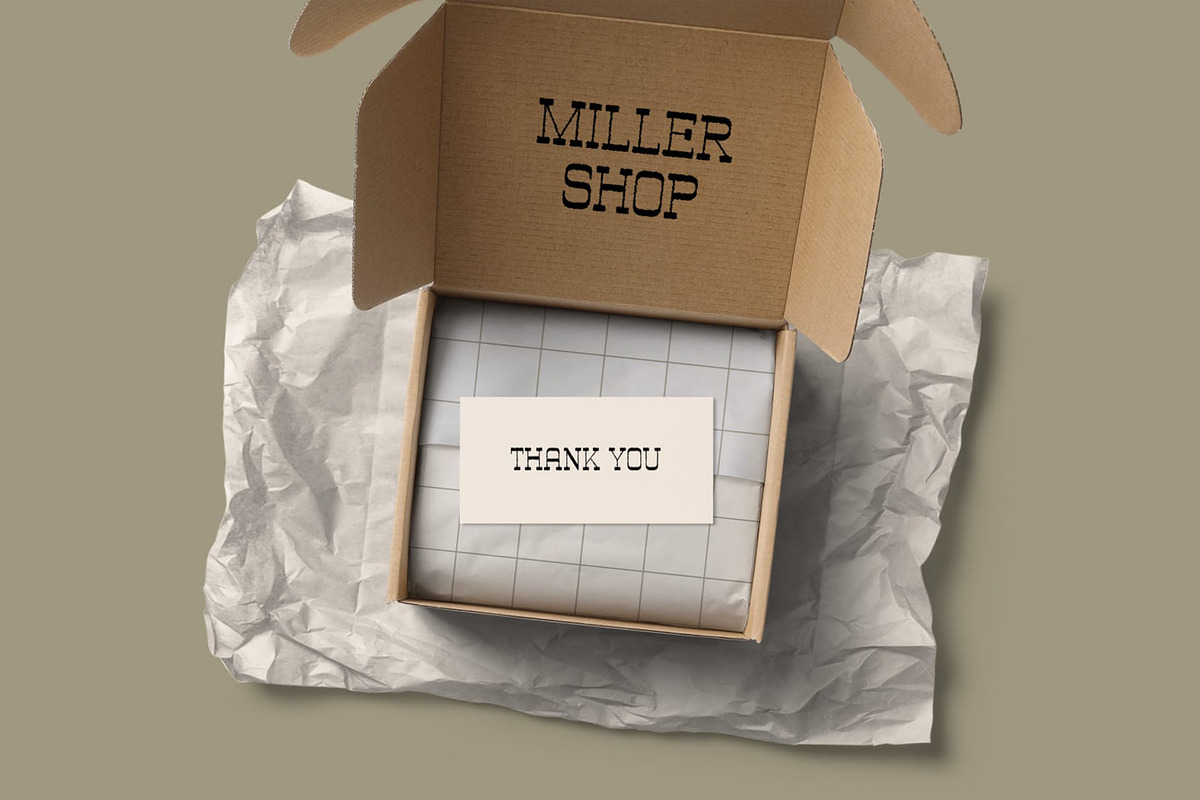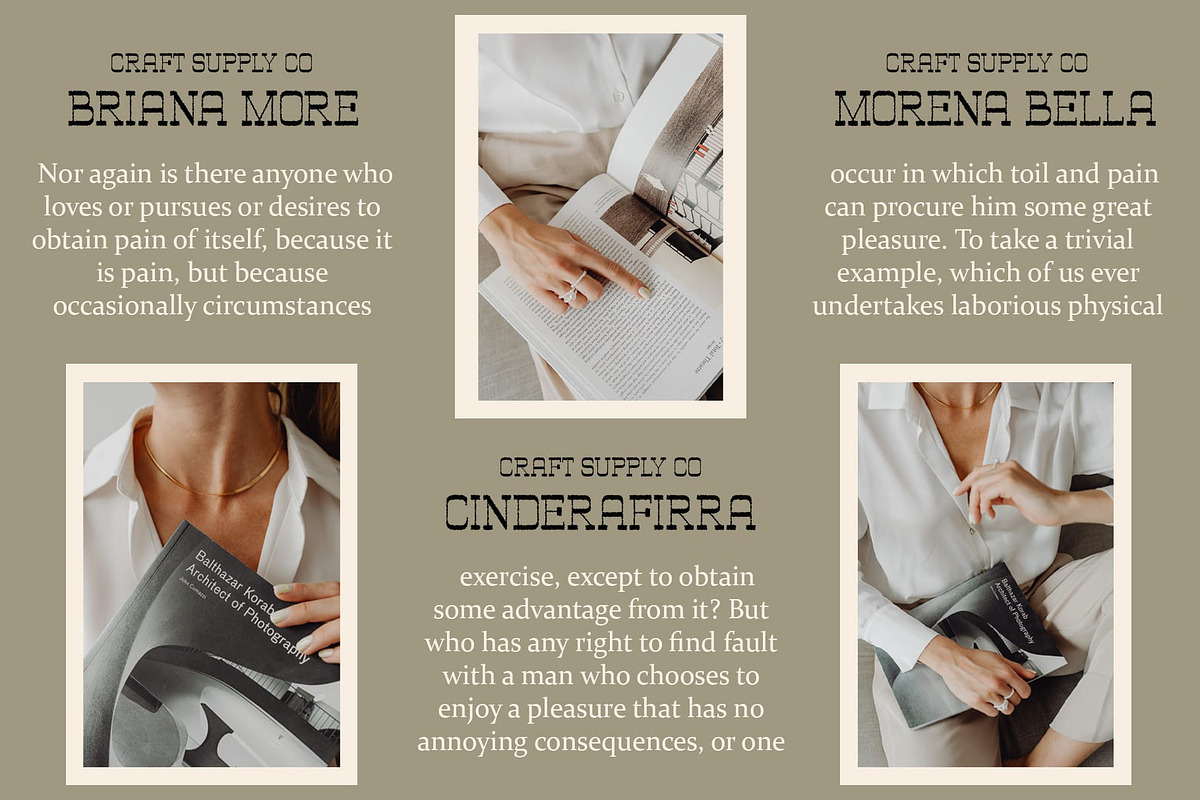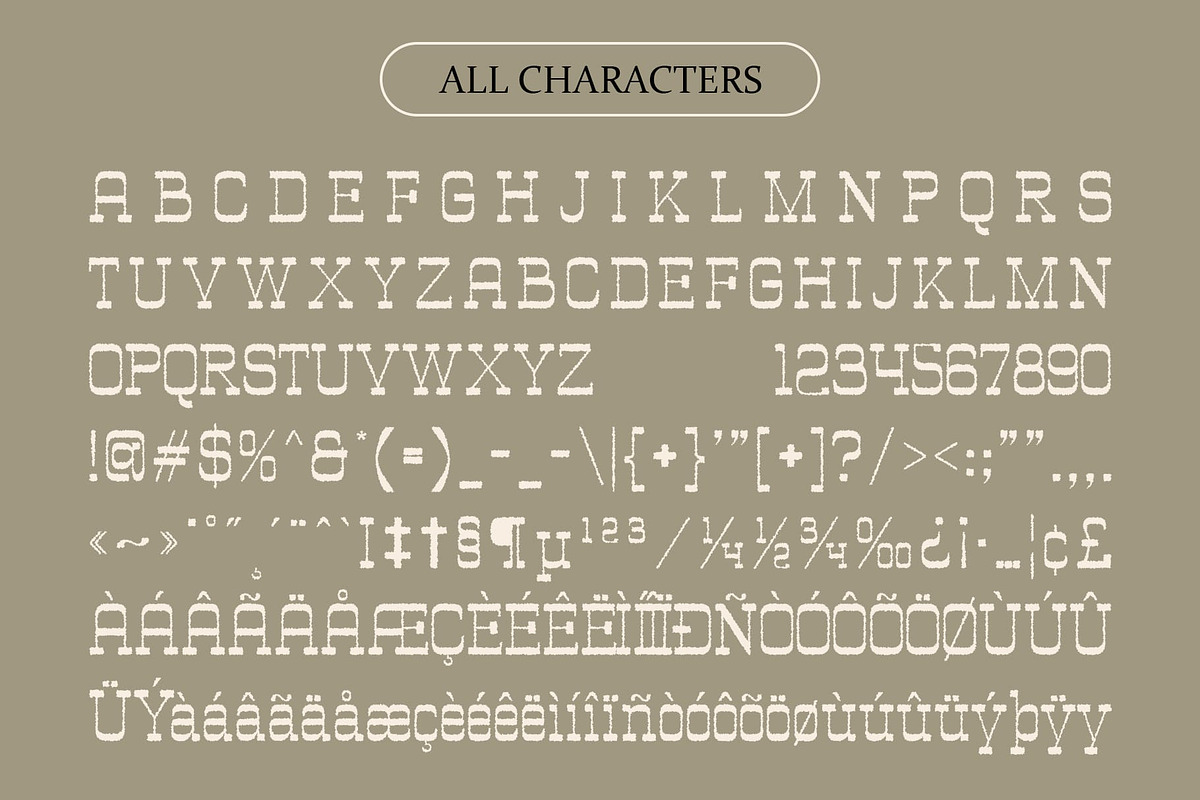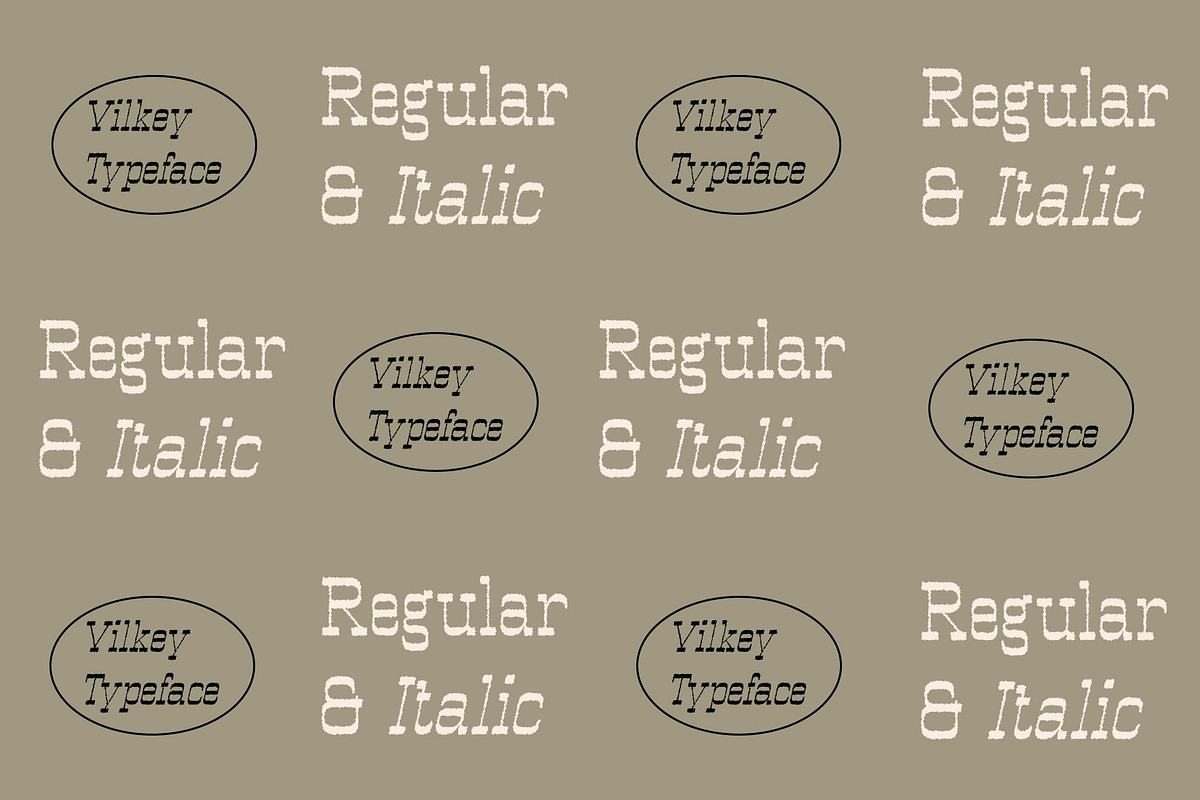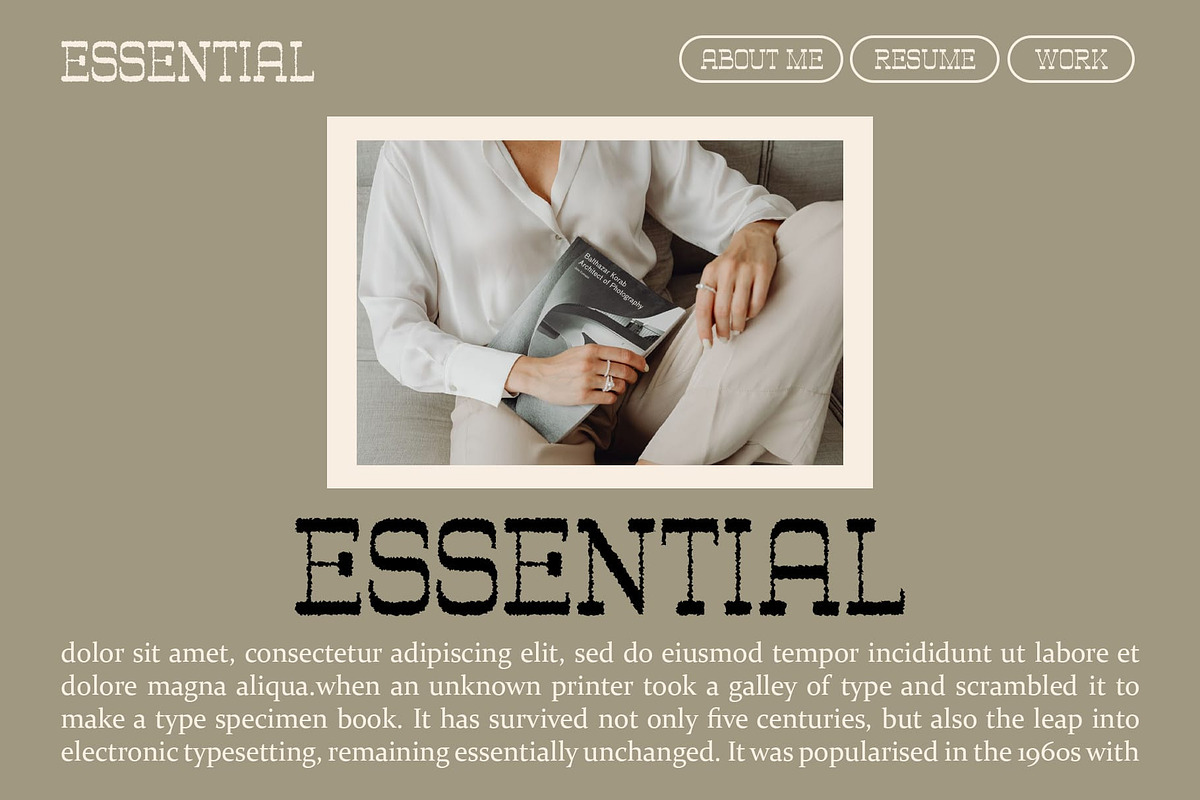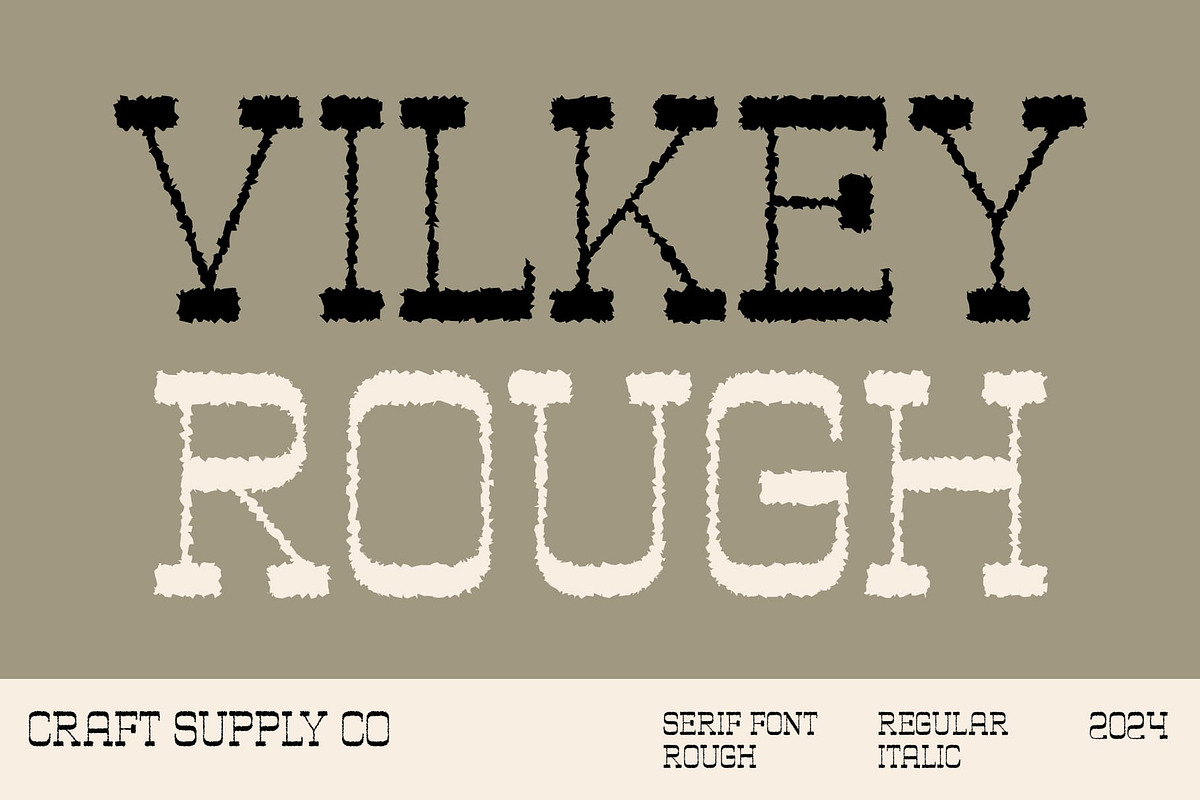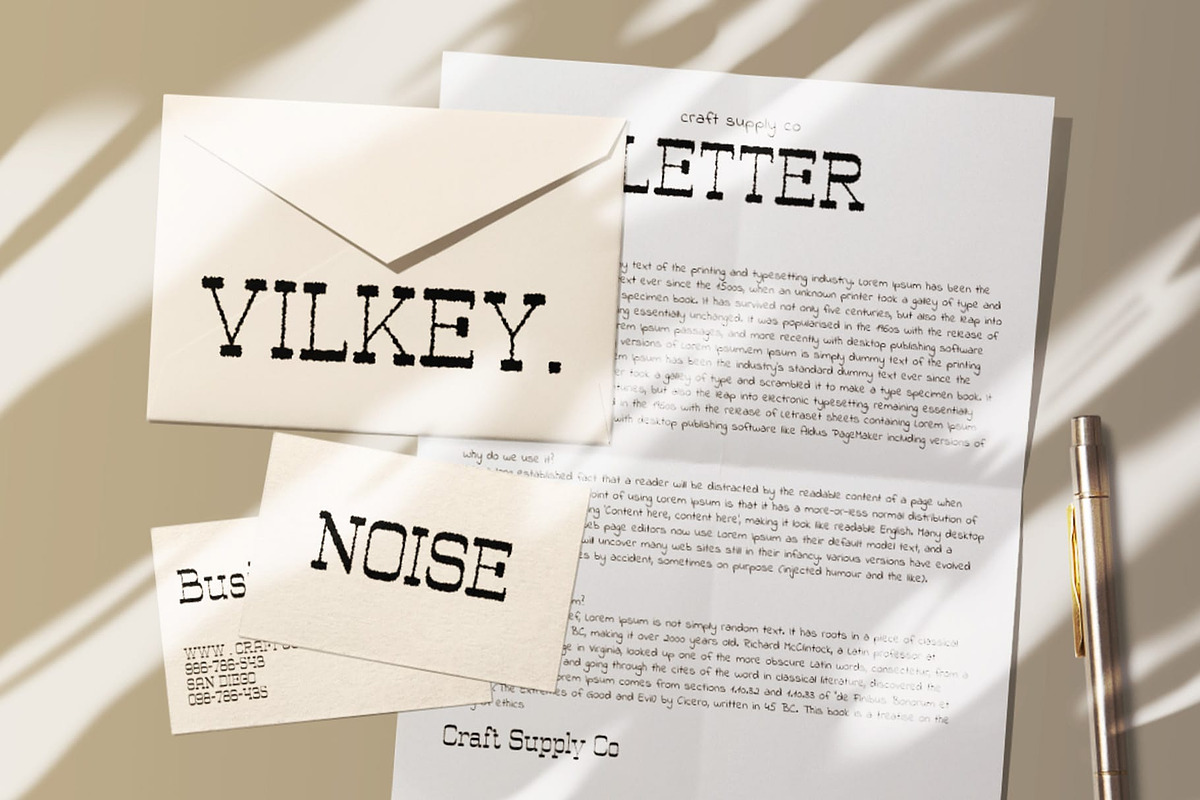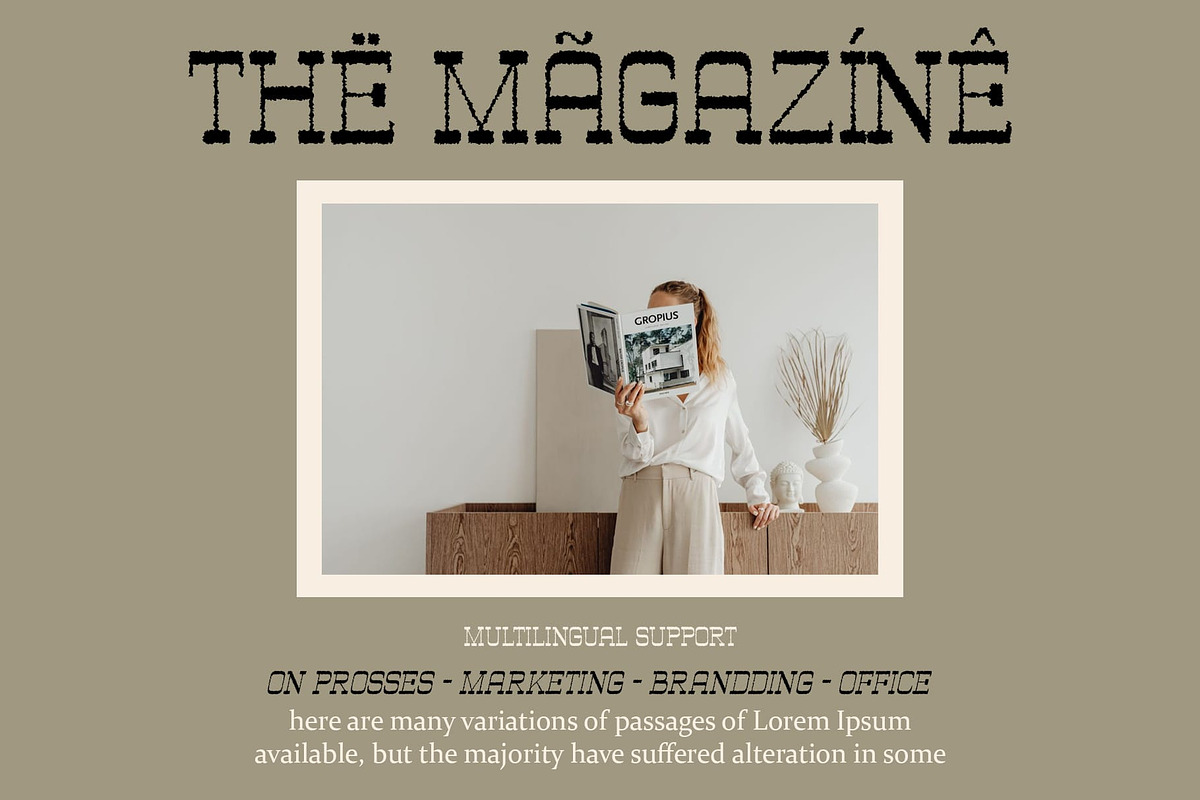
Vilkey Rough
Vilkey Rough: Embracing Boldness and Texture
Reverse Contrast Slab Serif Vilkey Rough boasts a reverse contrast slab serif design, where the thick strokes are found in the horizontal elements rather than the vertical ones. This unique characteristic lends it a striking and unconventional appearance.
Rough Texture Effect The font is enhanced with a rough texture effect, adding depth and character to each letterform. This rugged texture imbues This font with a sense of authenticity and handmade craftsmanship, perfect for adding personality to display projects.
Ideal for Display Purposes Designed specifically for display purposes, This font commands attention with its bold presence and distinctive style. Its reverse contrast and rough texture make it an excellent choice for headlines, banners, posters, and other eye-catching designs.
Versatile Application Despite its bold and rugged appearance, This font is surprisingly versatile. Whether used in branding, packaging, editorial design, or digital media, it adds a touch of boldness and texture to any project, ensuring it stands out from the crowd.
Boldness Redefined This font redefines boldness with its reverse contrast slab serif design and rough texture effect. Perfect for display purposes, this font captures attention and adds depth to various design projects, making it a go-to choice for designers seeking a distinctive and impactful aesthetic.